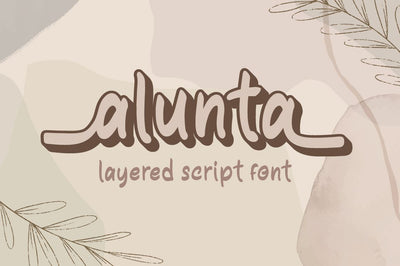
Alunta - Script Font
Alunta is a layered script font with versatile style and use it to create spectacular designs. Combine it with Alunta - Extrude & Ending Swash to make an amazing 3D effect on your letter!
Alunta perfect for wedding promotion, branding, logo, invitation, stationery, social media post, product packaging, merchandise,
blog design, game titles, cute style design, Book/Cover Title and more.